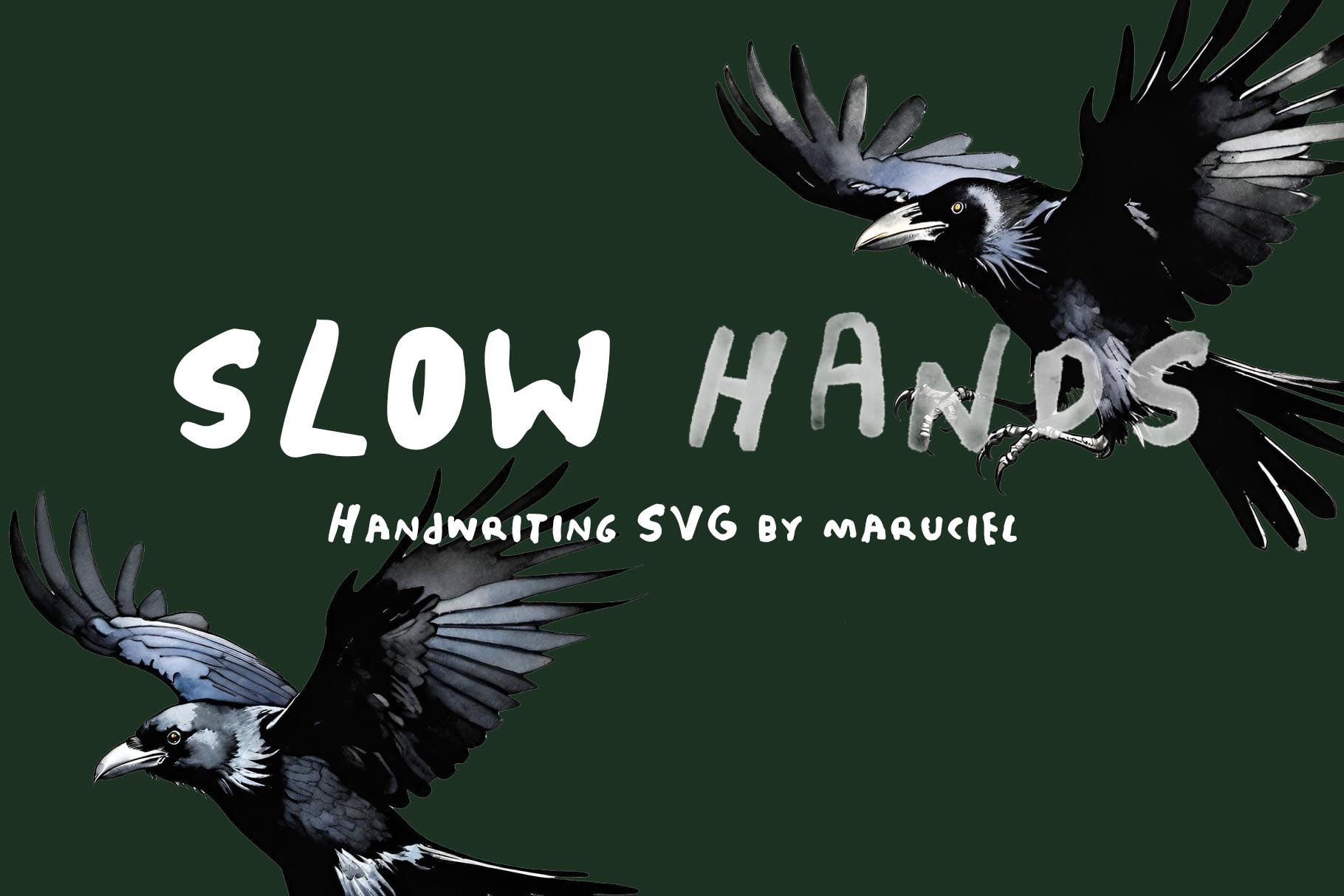
SLOW HANDS FONT DUO
"✨ Slow Hands Font Duo ✨ Perfectly hand-drawn for a personal touch!
SVG Watercolor Font: Beautiful, textured strokes for an authentic watercolor vibe. Solid Font: Clean and bold, ideal for versatile design needs.